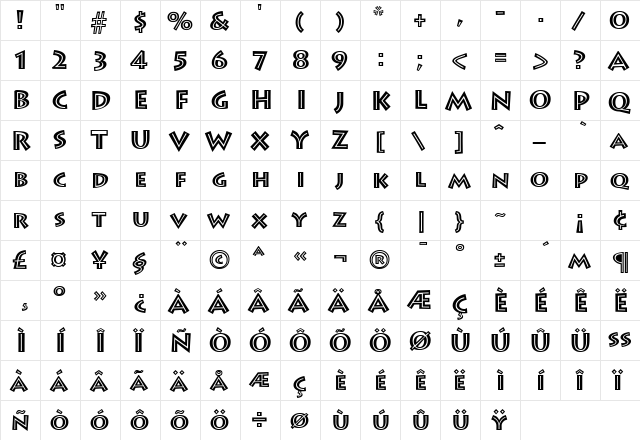
LeeToscaniniInlineSH Regular
Design Context for LeeToscaniniInlineSH Typeface
LeeToscaniniInlineSH brings ornamental detail and strong personality to headlines and identities, where visual impact matters more than quiet functionality.
Font Pairing: Pair with a clean neutral sans-serif for body copy to let LeeToscaniniInlineSH's character lead without overwhelming the composition.
Pro Tip: Treat LeeToscaniniInlineSH as the centrepiece of your typographic hierarchy. One strong heading set in a decorative face can carry an entire layout.